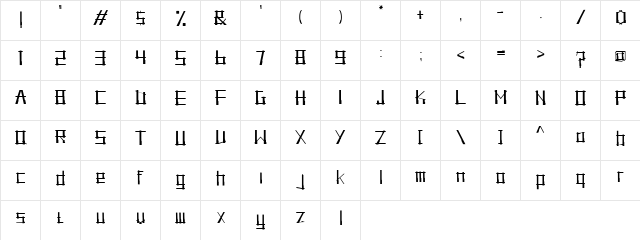
Angklung_KM_017 Regular
Design Context for Angklung_KM_017 Typeface
Angklung_KM_017 is a composed and adaptable typeface that performs quietly and consistently across a wide range of design contexts.